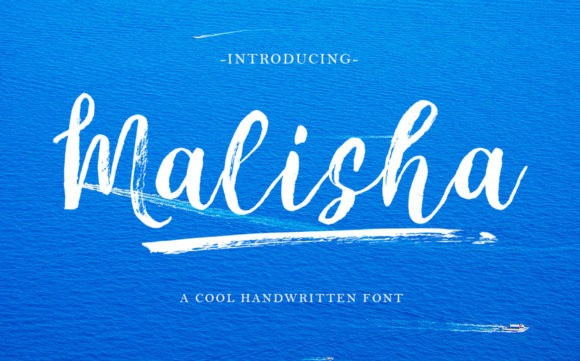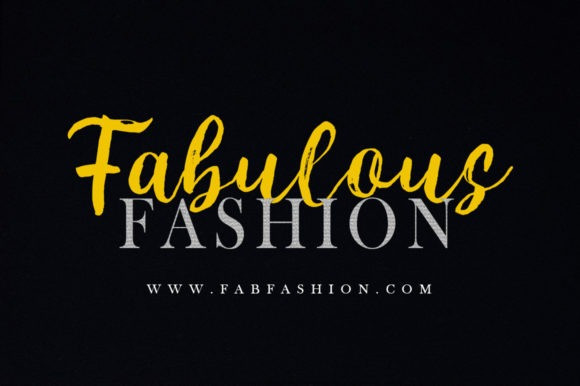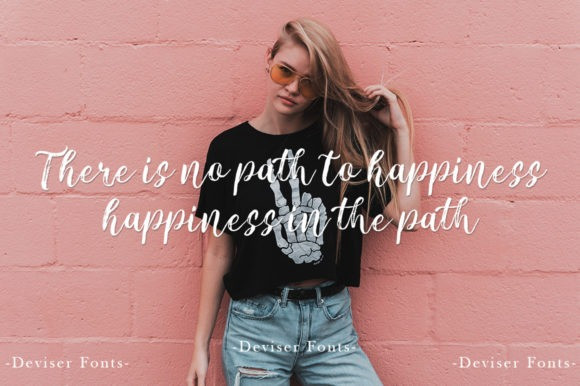
Malisha Font
Malisha is a chic, brushed script font that emanates sophistication and elegance. Its stylish alternates and ligatures make this font the perfect match for any project.